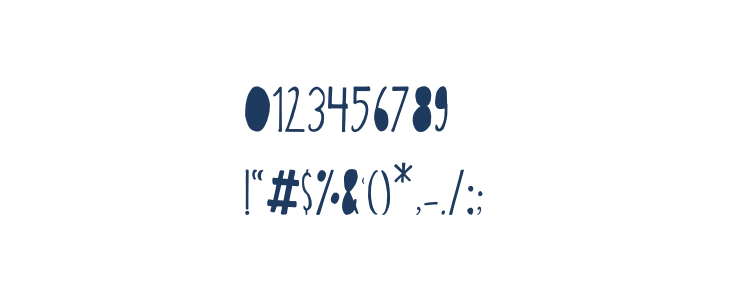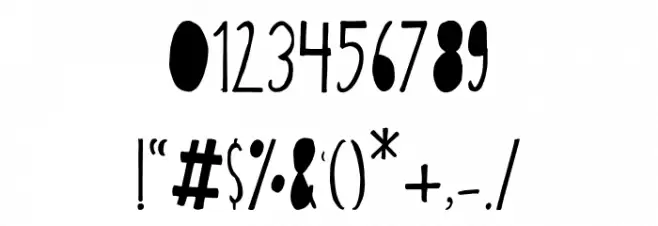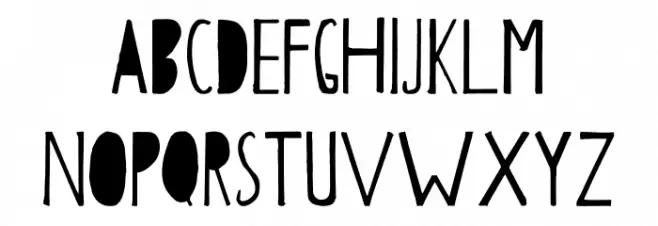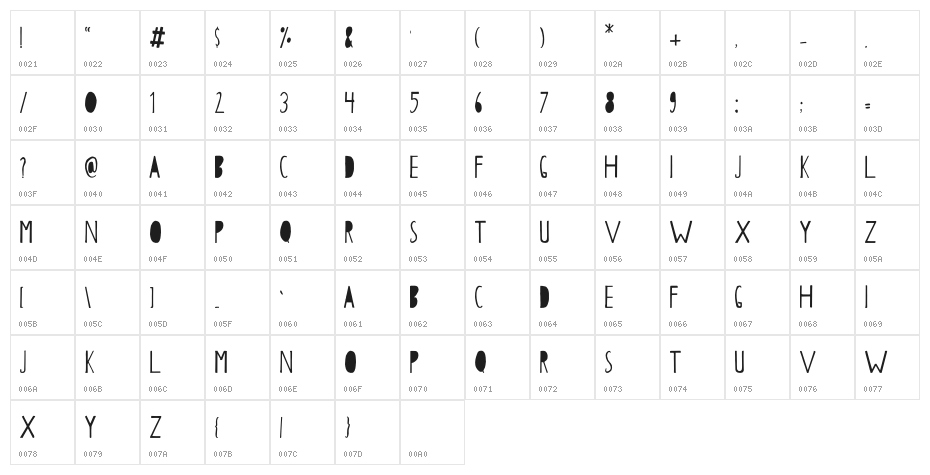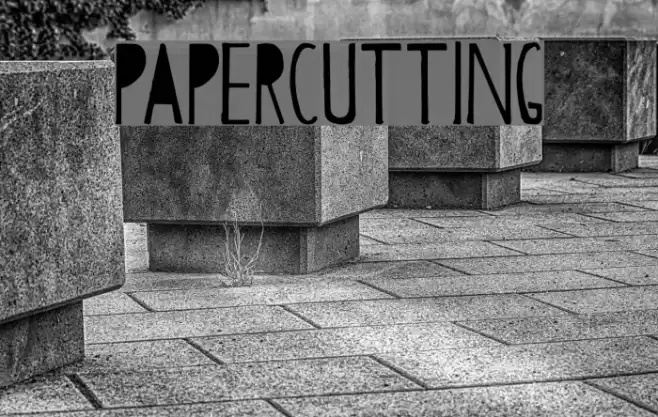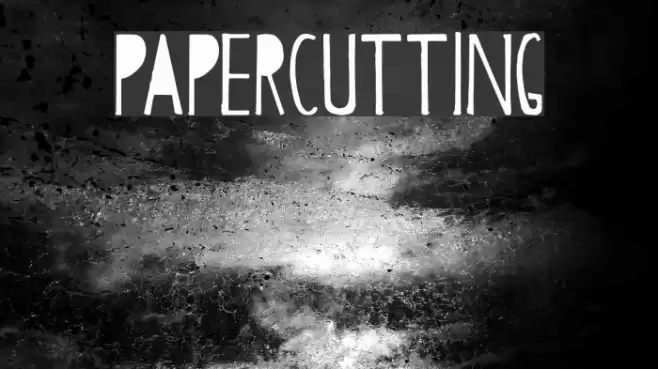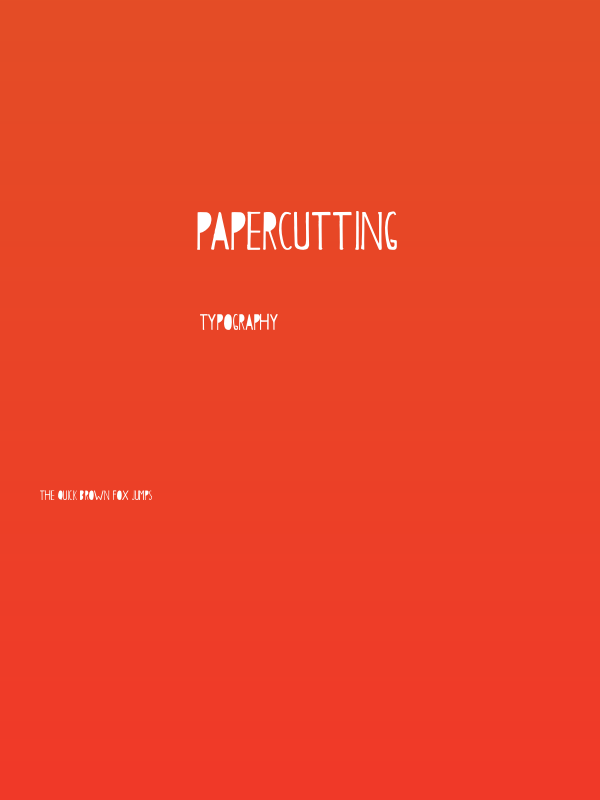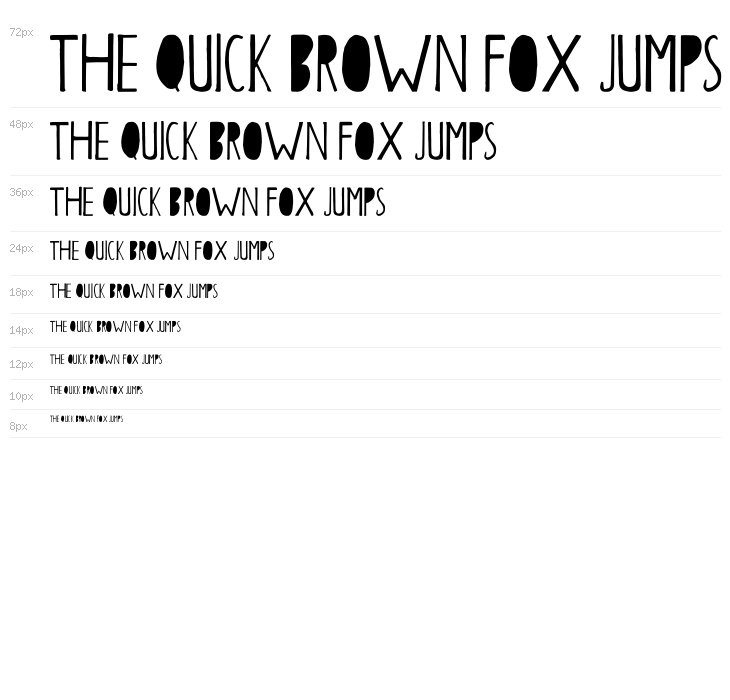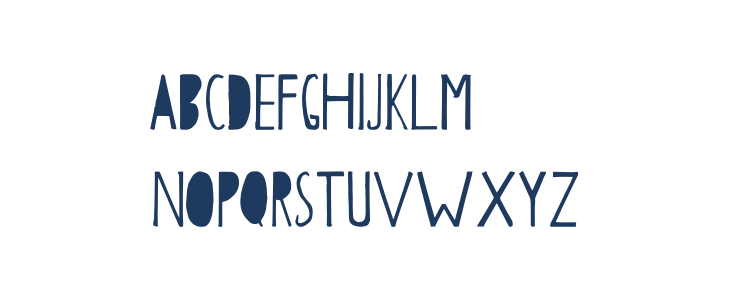
Papercutting Font
Papercutting Description
This font features a playful and artistic style reminiscent of hand-cut paper shapes. The characters have an irregular, handcrafted appearance with varying stroke widths, giving them a unique and whimsical charm. The uppercase letters are bold and slightly uneven, while the lowercase letters maintain a consistent style that complements the uppercase. Numbers and special characters follow the same artistic theme, adding to the font's cohesive look. The overall design is both eye-catching and informal, making it suitable for creative and fun projects.
| Name | Papercutting |
| Overall Style | Whimsical, Artistic |
| Proposed Projects | Ideal for children's book covers, craft projects, greeting cards, and playful branding. |